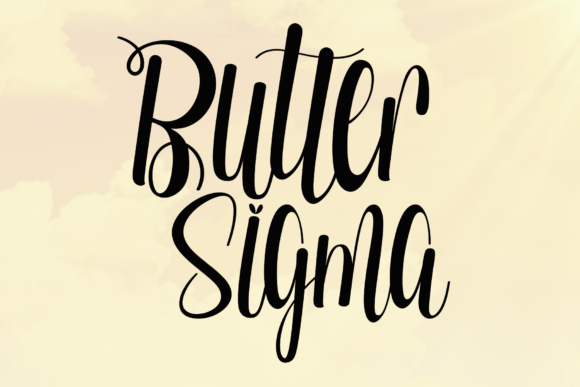
Introducing Butter Sigma Font: The Epitome of Elegance and Sophistication
In the realm of typography, few fonts manage to capture the essence of charm and sophistication as effortlessly as Butter Sigma. This beautifully flowing script font has been making waves in the design community, and for good reason. With its smooth curves and handwritten feel, Butter Sigma is the perfect choice for a variety of applications, from wedding invitations and personal branding to elegant packaging and romantic quotes.
The Characteristics of Butter Sigma Font
Butter Sigma is a script font that exudes elegance and refinement. Its smooth, flowing curves give it a handwritten feel that’s both personal and sophisticated. The font features:
- Smooth Curves: The font’s curves are meticulously crafted to create a sense of fluidity and continuity, making it perfect for words and phrases that need to flow smoothly.
- Handwritten Feel: Despite being a digital font, Butter Sigma has a distinctly handwritten feel that adds a touch of warmth and personality to any text.
- Elegant Lines: The font’s lines are carefully designed to be both elegant and expressive, making it suitable for a wide range of applications.
Uses of Butter Sigma Font
Butter Sigma’s versatility is one of its most appealing features. Here are some of the many ways you can use this beautiful font:
- Wedding Invitations: Add a touch of romance and sophistication to your wedding invitations with Butter Sigma. The font’s elegant curves and handwritten feel make it perfect for formal and informal wedding announcements.
- Personal Branding: Establish your personal brand with a unique and recognizable font. Butter Sigma’s distinctive style will help you stand out from the crowd and create a lasting impression.
- Elegant Packaging: Elevate your product packaging with Butter Sigma. The font’s sophisticated feel makes it ideal for luxury brands and high-end products.
- Romantic Quotes: Add a touch of romance to your social media posts, blog articles, or marketing materials with Butter Sigma. The font’s flowing curves and elegant lines make it perfect for conveying heartfelt messages.
The Benefits of Using Butter Sigma Font
So why choose Butter Sigma over other fonts? Here are just a few benefits of using this beautiful script font:
- Unique Style: Butter Sigma’s distinctive style will help you stand out from the crowd and create a lasting impression.
- Versatility: The font’s versatility makes it suitable for a wide range of applications, from wedding invitations to elegant packaging.
- Elegance: Butter Sigma’s elegant curves and handwritten feel make it perfect for formal and informal applications.
- Easy to Read: Despite its elegant feel, Butter Sigma is surprisingly easy to read, making it perfect for long-form text and body copy.
Tips for Using Butter Sigma Font Effectively
To get the most out of Butter Sigma, here are a few tips to keep in mind:
- Use it Sparingly: While Butter Sigma is a beautiful font, it’s best used sparingly. Use it for headings, titles, or key phrases to add emphasis and create visual interest.
- Pair it with a Sans-Serif Font: For body copy and longer text, pair Butter Sigma with a sans-serif font to create visual contrast and improve readability.
- Experiment with Colors: Butter Sigma looks stunning in a variety of colors. Experiment with different hues and shades to find the perfect combination for your design.
- Pay Attention to Kerning: As with any font, pay attention to kerning to ensure that your text looks professional and polished.
In conclusion, Butter Sigma is a beautifully flowing script font that radiates charm and sophistication. With its smooth curves and handwritten feel, it’s perfect for a variety of applications, from wedding invitations and personal branding to elegant packaging and romantic quotes. Whether you’re a designer, marketer, or simply someone who appreciates beautiful typography, Butter Sigma is sure to impress.
FAQs About Butter Sigma Font
- What is Butter Sigma Font? Butter Sigma is a script font that features smooth curves and a handwritten feel.
- What is Butter Sigma Font used for? Butter Sigma is perfect for wedding invitations, personal branding, elegant packaging, and romantic quotes.
- Is Butter Sigma Font easy to read? Yes, despite its elegant feel, Butter Sigma is surprisingly easy to read.